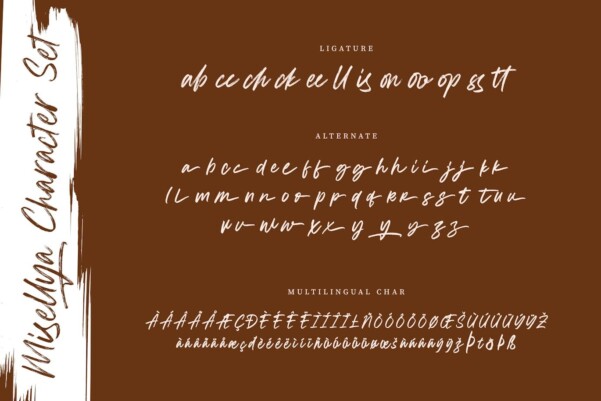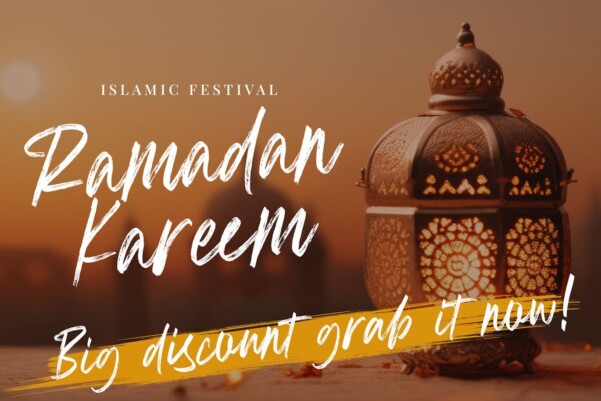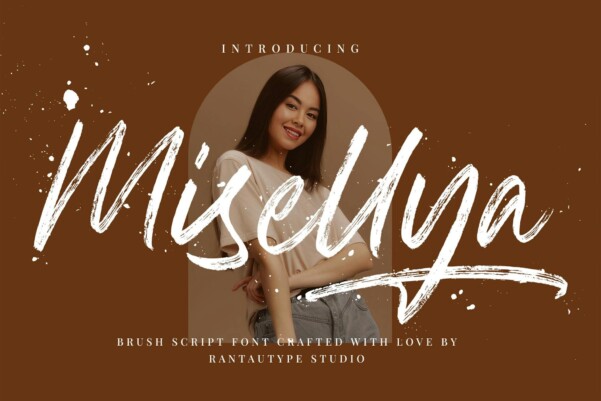
Misellya Font
Misellya Font is a script font with a visible brush effect and natural stripes. An elegant brushstroke makes this font eye-catching and versatile.
Misellya is a perfect choice for any creative, chic and lifestyle design, like logos, advertisements, watermarks on photography, stationery, branding projects, displays and magazines, invitations, brands business, product design, labels, commercial projects and many other projects requiring taste in handwriting.